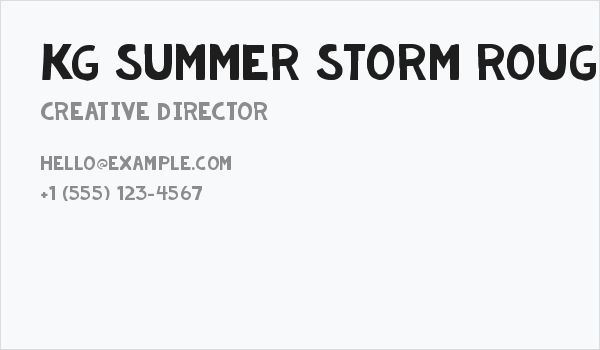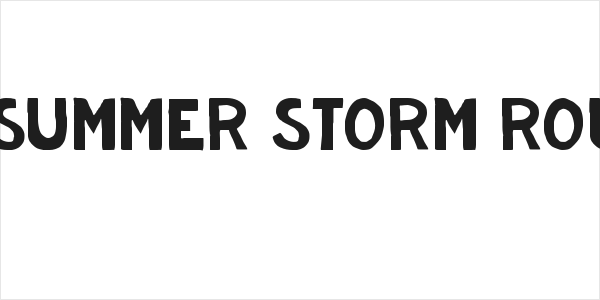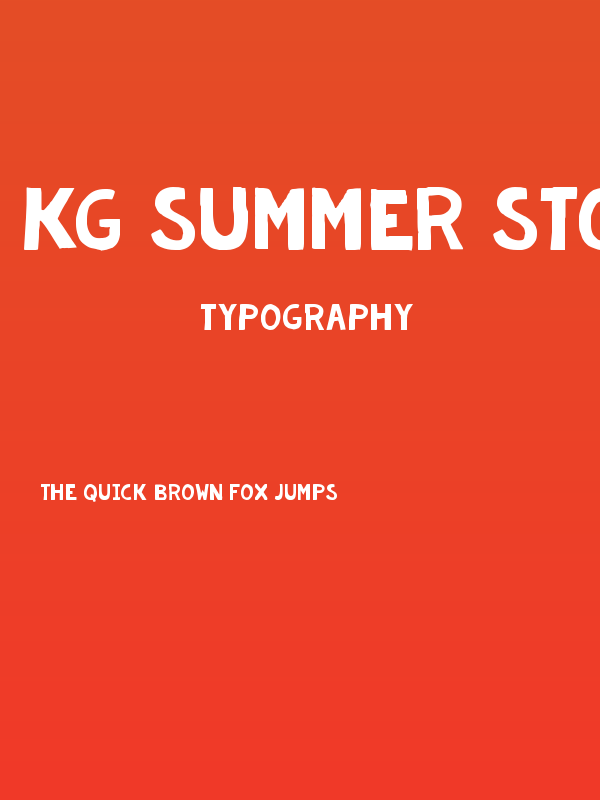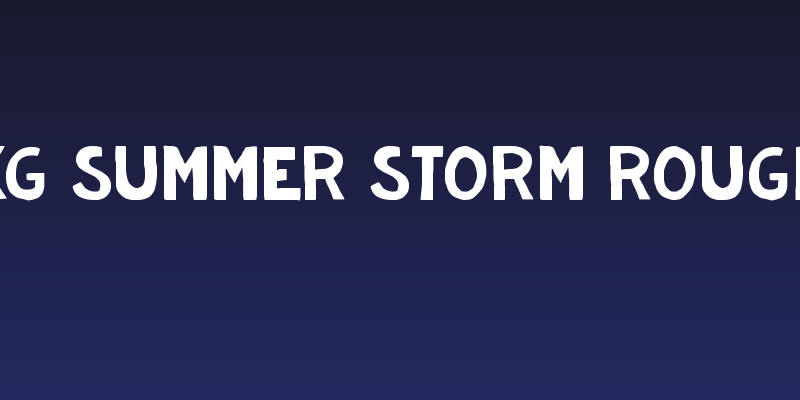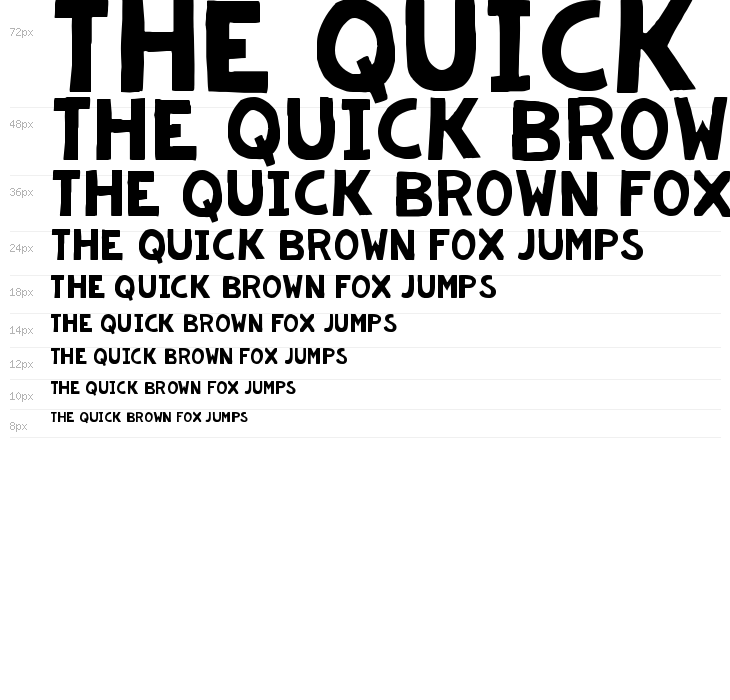
KG Summer Storm Rough Font
KG Summer Storm Rough Description
This font features a bold and playful design with a hand-drawn aesthetic, characterized by its uneven strokes and slightly rough edges. The letters have a casual and informal appearance, making them ideal for projects that require a touch of whimsy and creativity. The uppercase and lowercase letters maintain a consistent style, with a slight tilt and irregularity that adds to the font's charm. The numbers and special characters are designed to match the overall playful theme, ensuring a cohesive look across all text elements.
| Proposed Projects | Ideal for children's books, playful branding, casual invitations, and creative posters. |